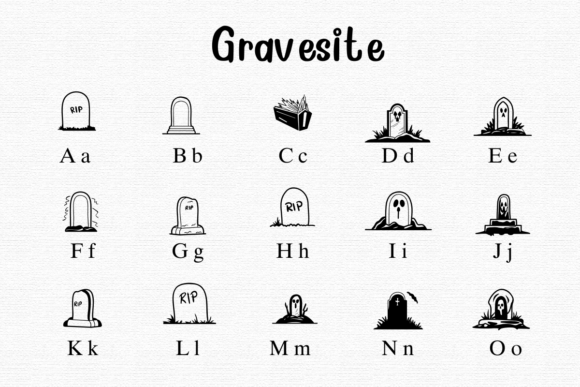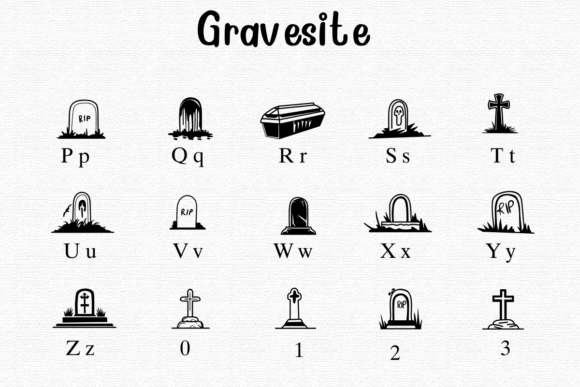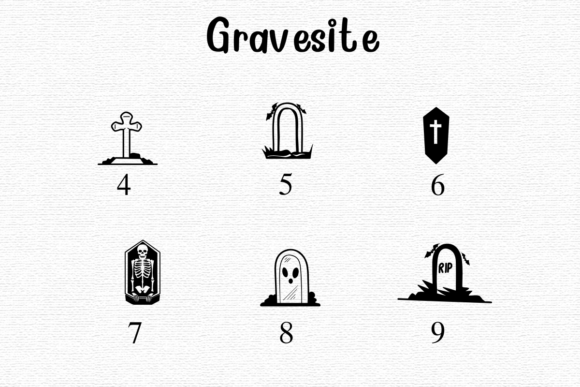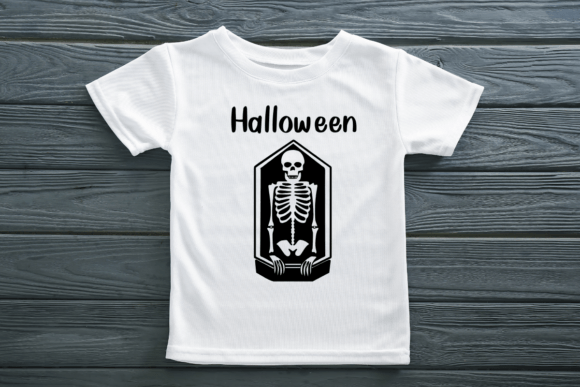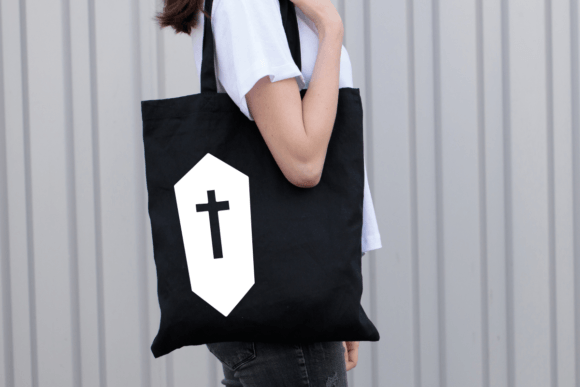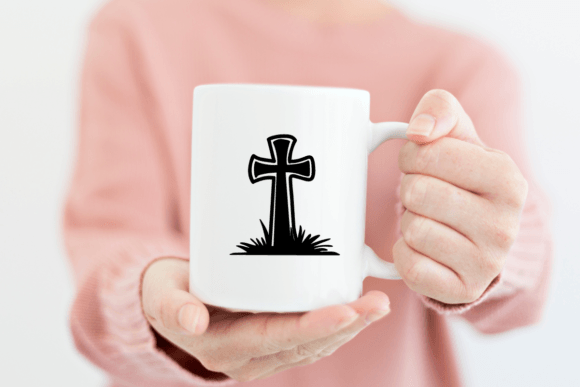
The Spooky Charm of Gravesite Font: A Designer’s Delight
I still remember the project that led me to discover Gravesite Font. I was working on a Halloween-themed wedding invitation for a friend’s cousin, and I was struggling to find the perfect font to capture the spooky yet elegant vibe. That’s when I stumbled upon Gravesite Font, a dingbats font with a spooky theme that instantly caught my attention. In this article, I’ll share my experience with Gravesite Font, its features, and how to make the most of it in your creative projects.
An Honest Review of Gravesite Font
- ✨ Unique and quirky design that adds a touch of spookiness to any project
- ✅ Easy to read and versatile, making it perfect for various creative applications
- 🎃 Perfect for Halloween-themed projects, but also suitable for other occasions like Gothic weddings or spooky decorations
While Gravesite Font is an excellent choice for many projects, there are a few things to keep in mind:
- 🤔 Limited character set compared to other fonts, which might limit its use in certain projects
- ⚠️ May not be suitable for body text due to its decorative nature
The Backstory of Gravesite Font
Gravesite Font was designed with the intention of capturing the essence of spooky elegance. The designer aimed to create a font that would be both creepy and charming, perfect for adding a touch of macabre whimsy to various creative projects. While the designer’s true identity remains a mystery, their work has certainly made a lasting impact on the design community.
| Font Name | Gravesite Font |
| Author | Nongyao |
| What is Gravesite Font best used for? | Gravesite Font is perfect for creative projects that require a spooky yet elegant touch, such as wedding invitations, DIY crafts, decorations, logos, and more. |
| Is Gravesite Font suitable for body text? | No, Gravesite Font is a decorative font and may not be suitable for body text due to its unique design and limited character set. |